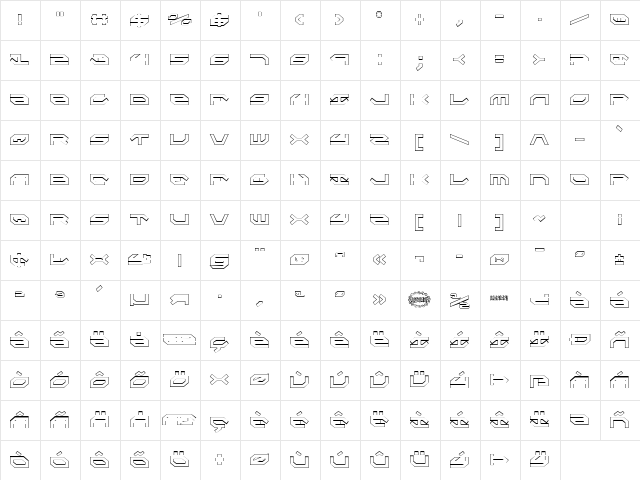
Taskforce Condensed Outline Free Font
Taskforce Condensed Outline
Style: Condensed Outline
Designer: Daniel Zadorozny
Year: 2008 (Mon, 25th Feb 2008)
Design Context for Taskforce Condensed Outline
Taskforce Condensed Outline brings high-energy athletic personality to the page - its confident, muscular forms are built for impact. Its narrow stance lets it pack a punch even in space-constrained designs.
A natural choice for gym brands, fantasy sports, jersey lettering, and action-driven headlines.
Font Pairing: Use alongside a condensed or geometric sans for supporting copy - keep the pairing bold, functional, and free of ornament.
Pro Tip: Use Taskforce Condensed Outline in all-caps headlines where its athletic energy can fully express itself. Pair with a solid, simple sans for supporting text.